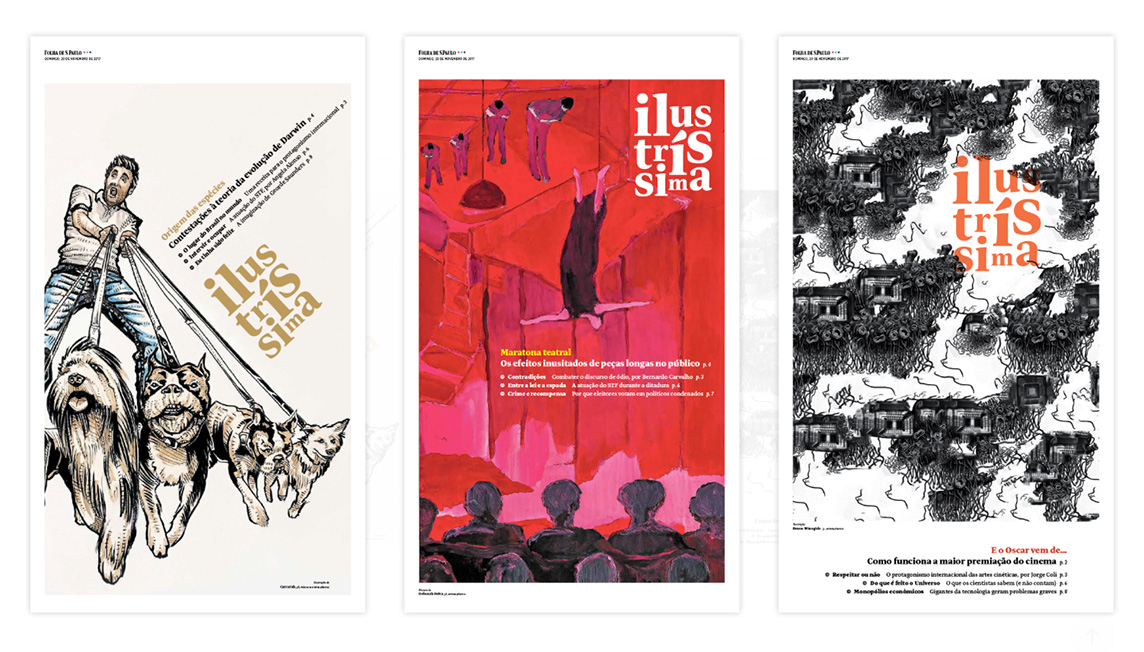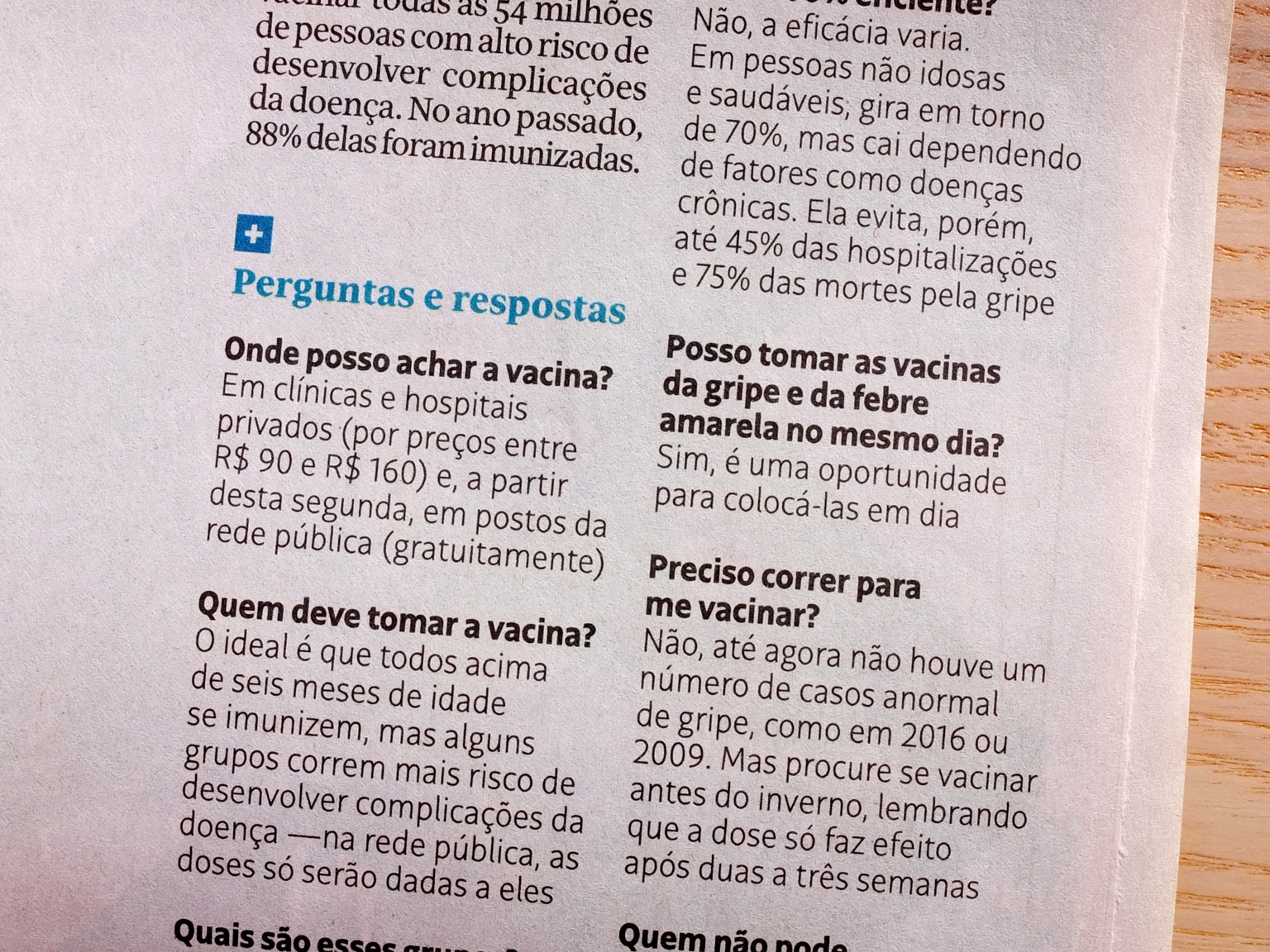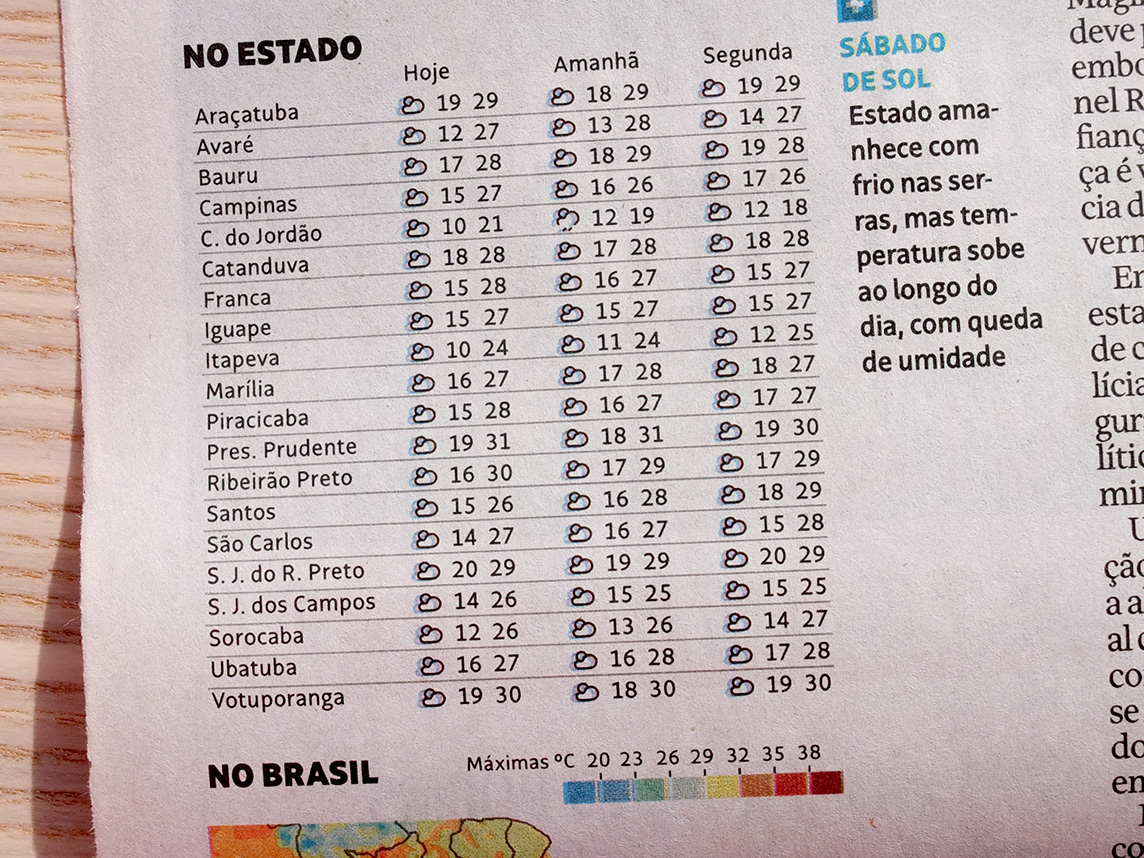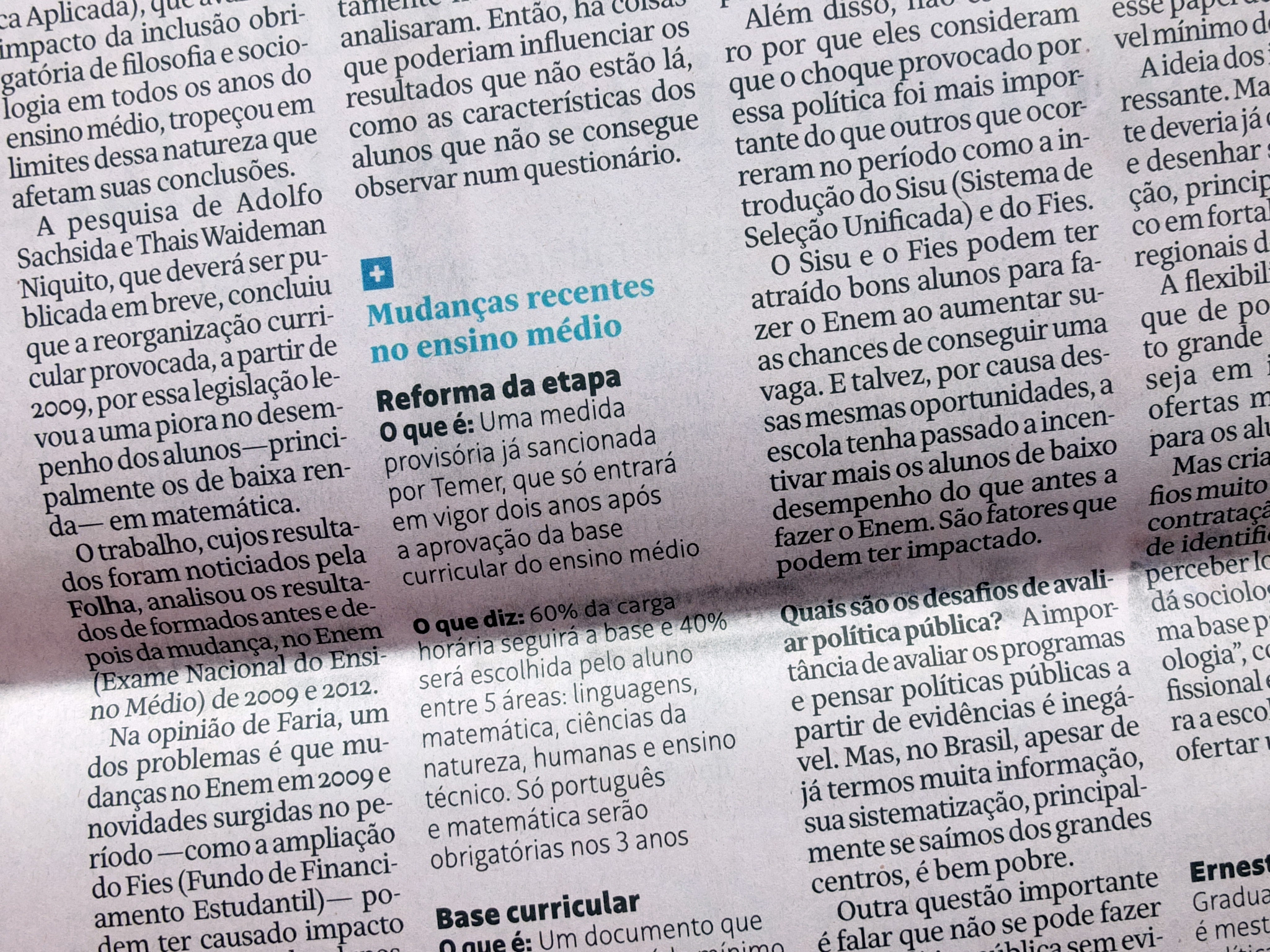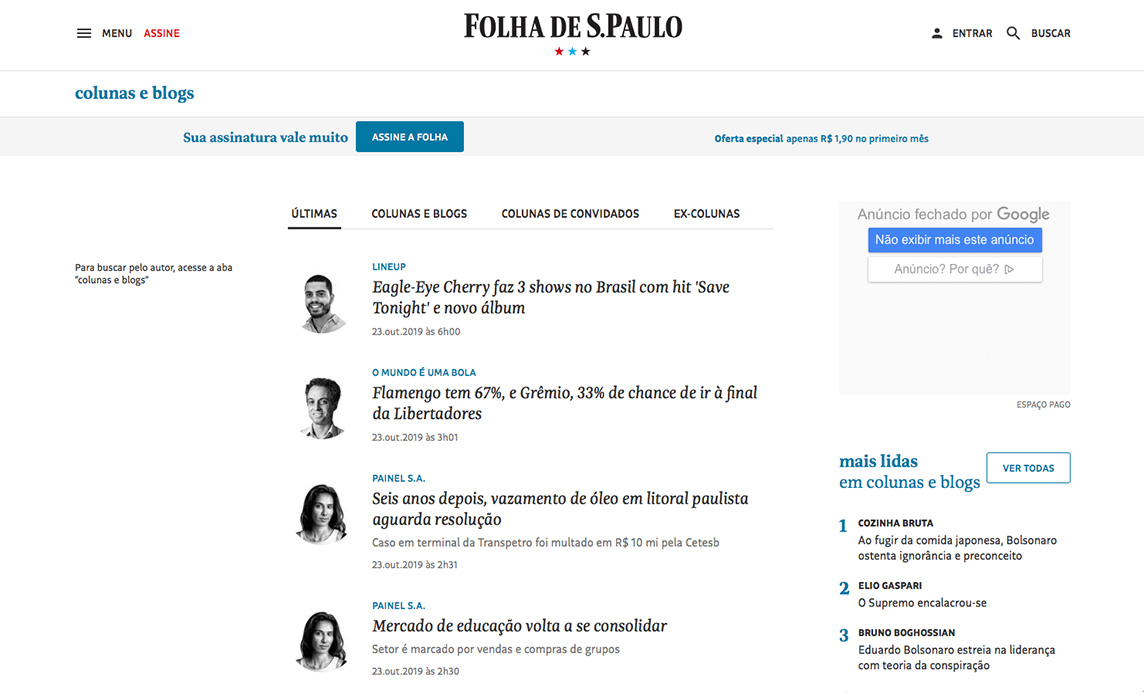
The serif and sans serif companions Folha Texto and Folha Grafico are two new co-ordinated type families from Tipografies. They were commissioned by the Brazilian press group Folha de São Paulo for the redesign of their newspapers, magazines, and other media, including web solutions and apps. Folha de São Paulo originally licensed Bulo and Trola Text, both commercial typefaces from the Tipografies catalog.
After a while, the press group realised it needed to strengthen its brand by lending it more exclusivity. This led us to examine the typefaces, rethinking their designs and creating two custom families for the press group. They coexist with Folha Serif, the spirited titling face designed by Luc(as) de Groot. While Folha Serif continues to give shape Folha de São Paulo’s identity in headlines and mastheads, the new families by Tipografies will articulate the body of its publications. Because their exclusivity is limited to Brazil, Folha Texto and Folha Gráfico are available for commercial licensing in the rest of the world.